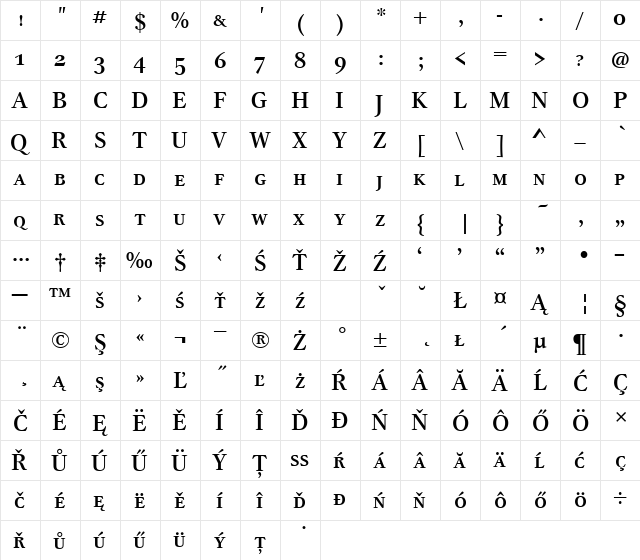
GammaItcSCTEEMed Regular Font Preview
GammaItcSCTEEMed Regular
GammaItcSCTEEMed Regular Font Details
Design Context for GammaItcSCTEEMed Typeface
GammaItcSCTEEMed offers clean, dependable letterforms without strong stylistic allegiance, making it a practical choice for designers who need flexibility.